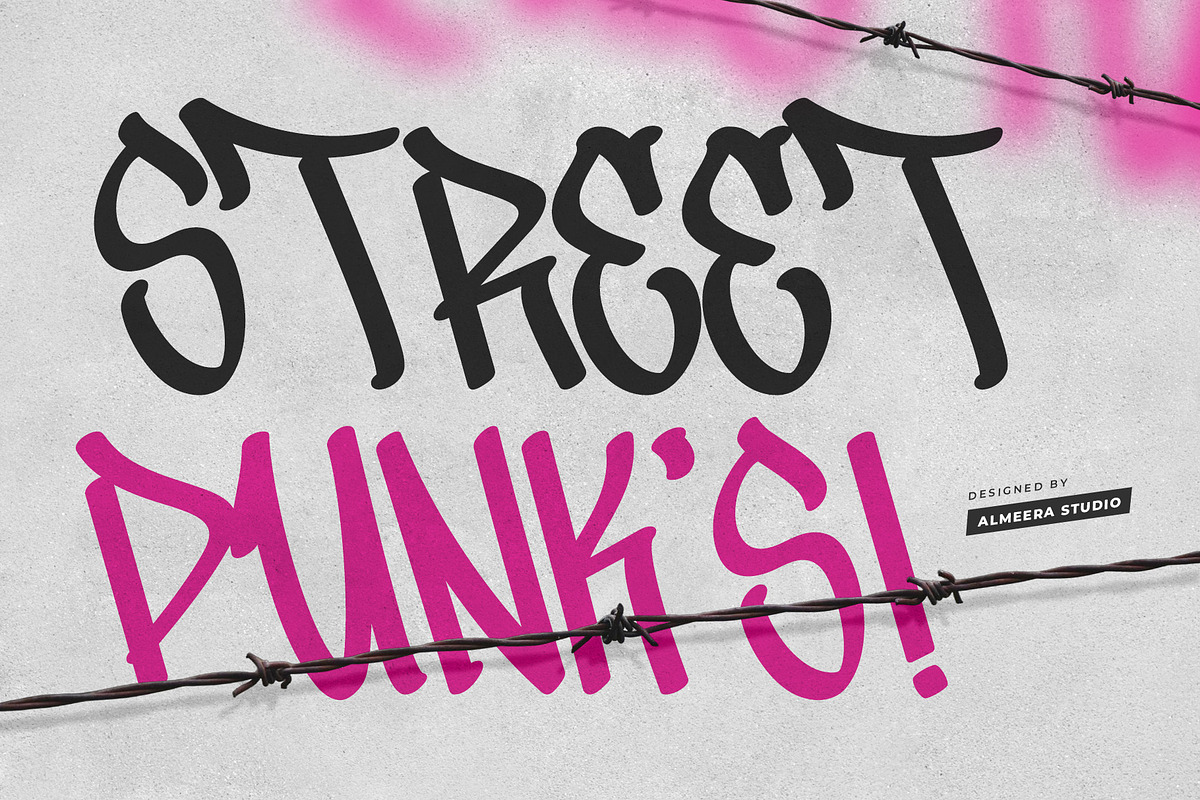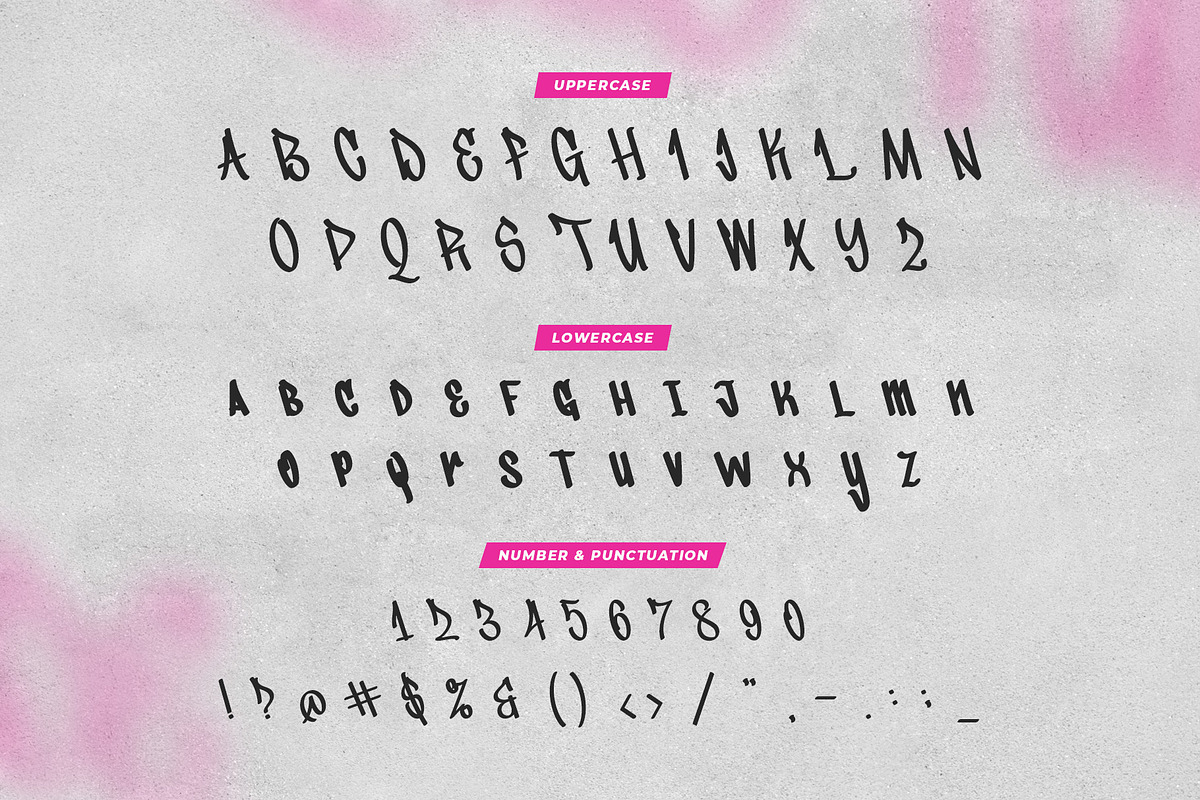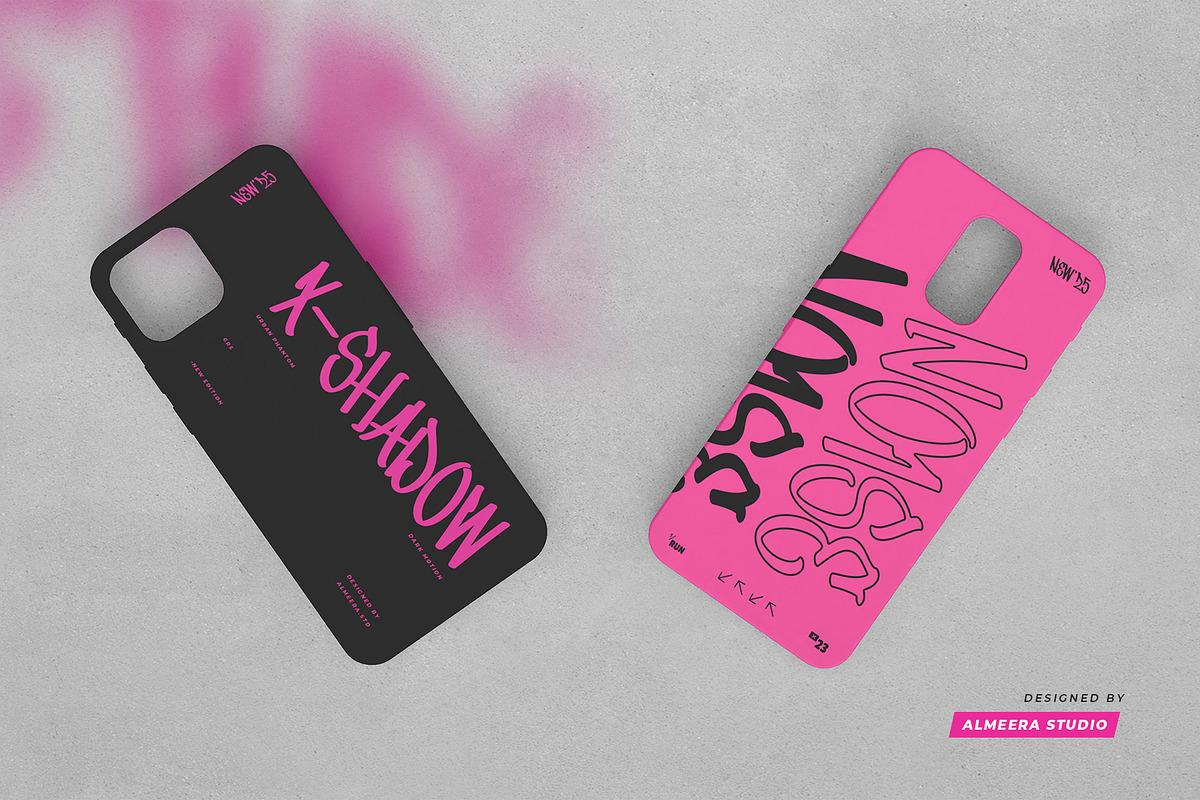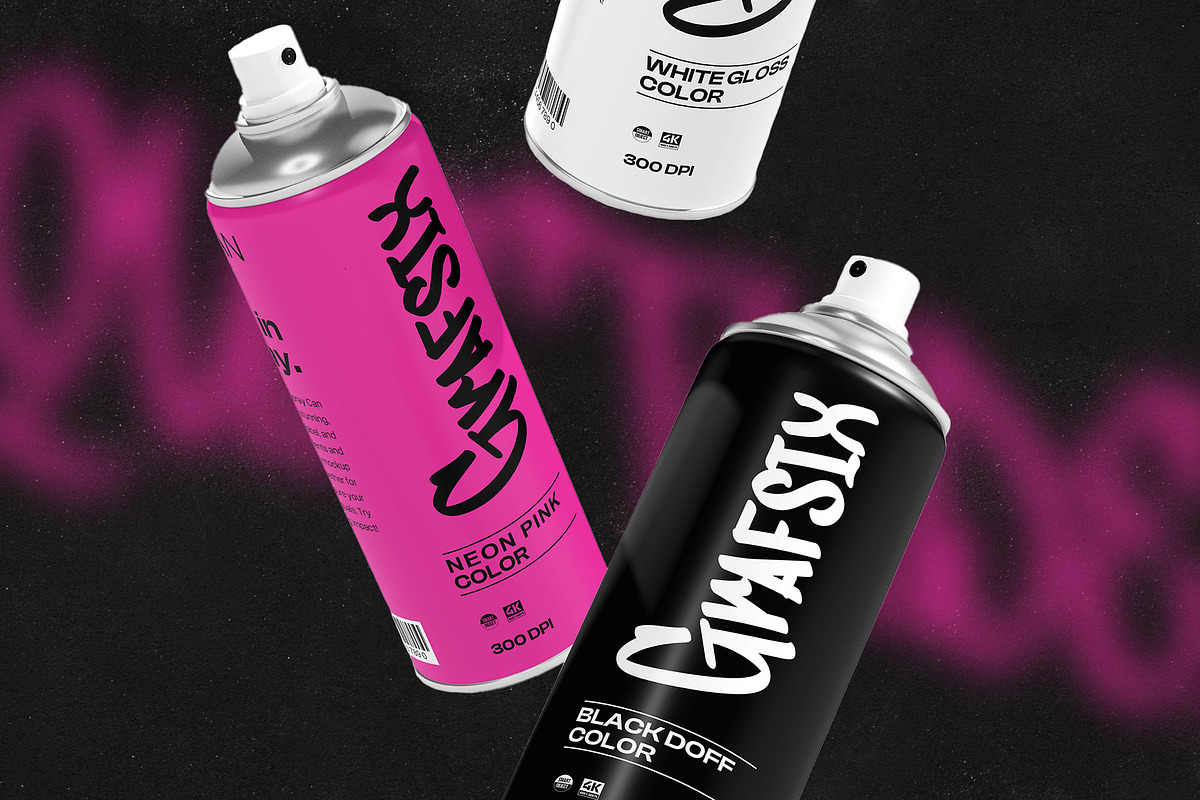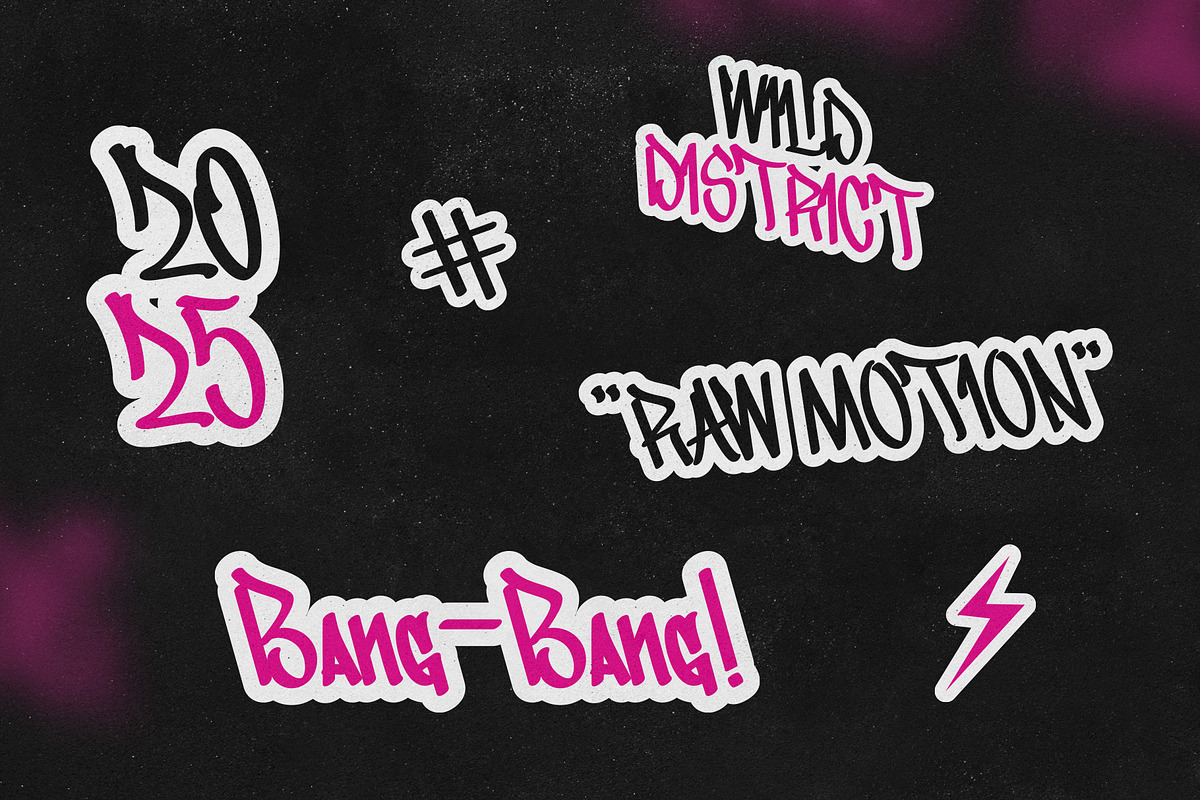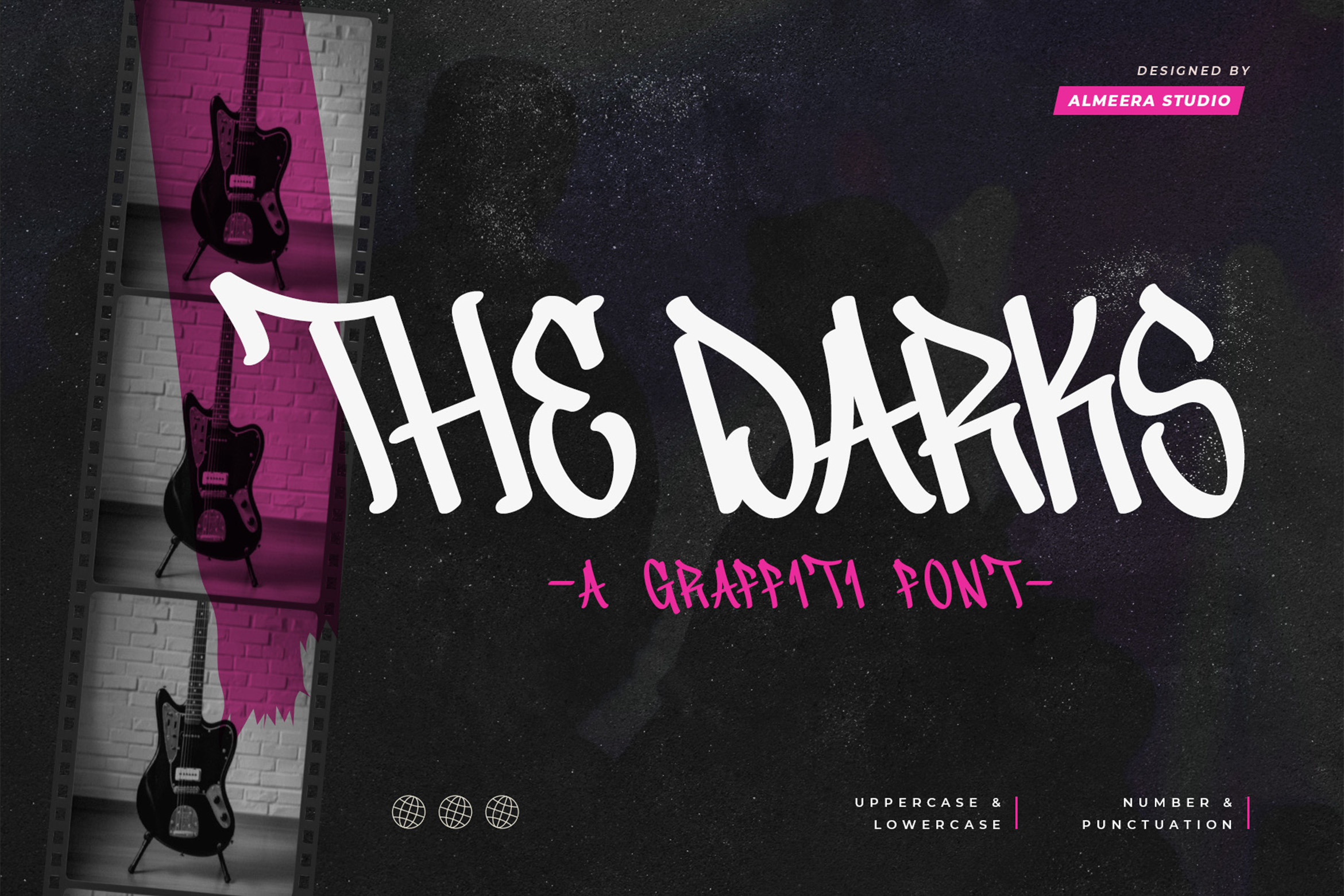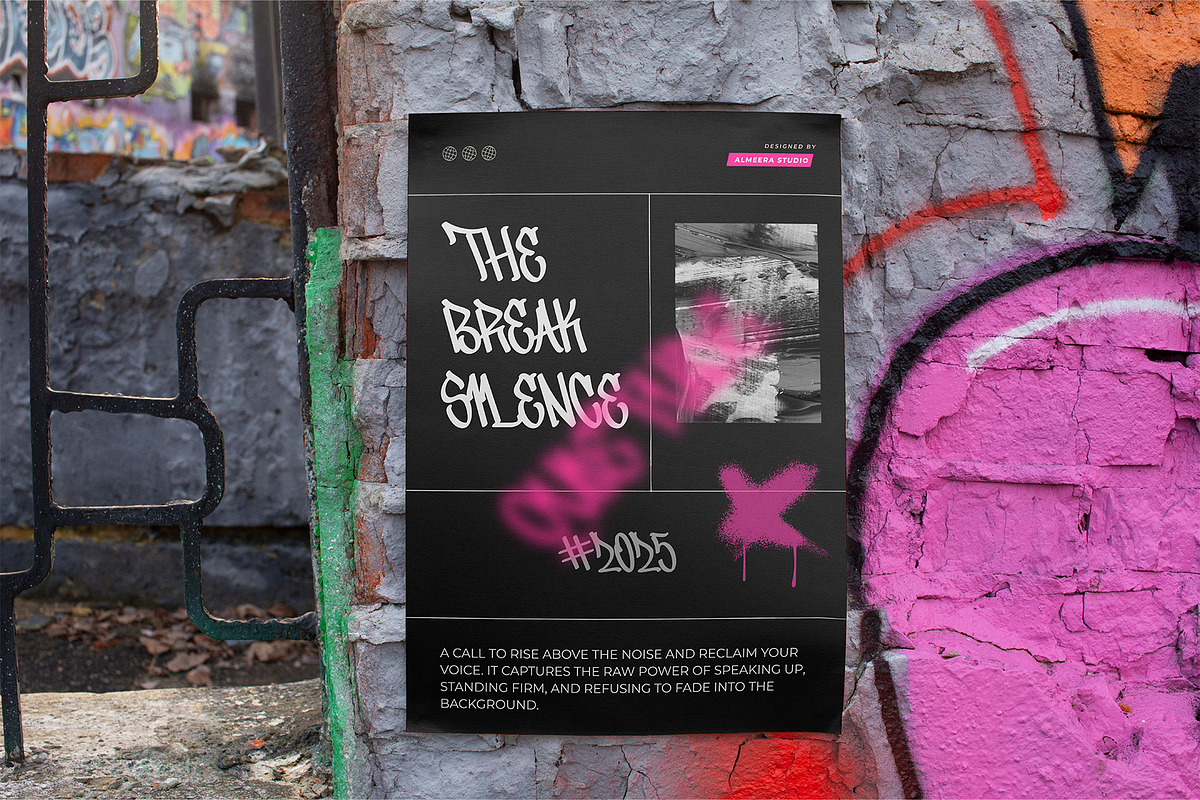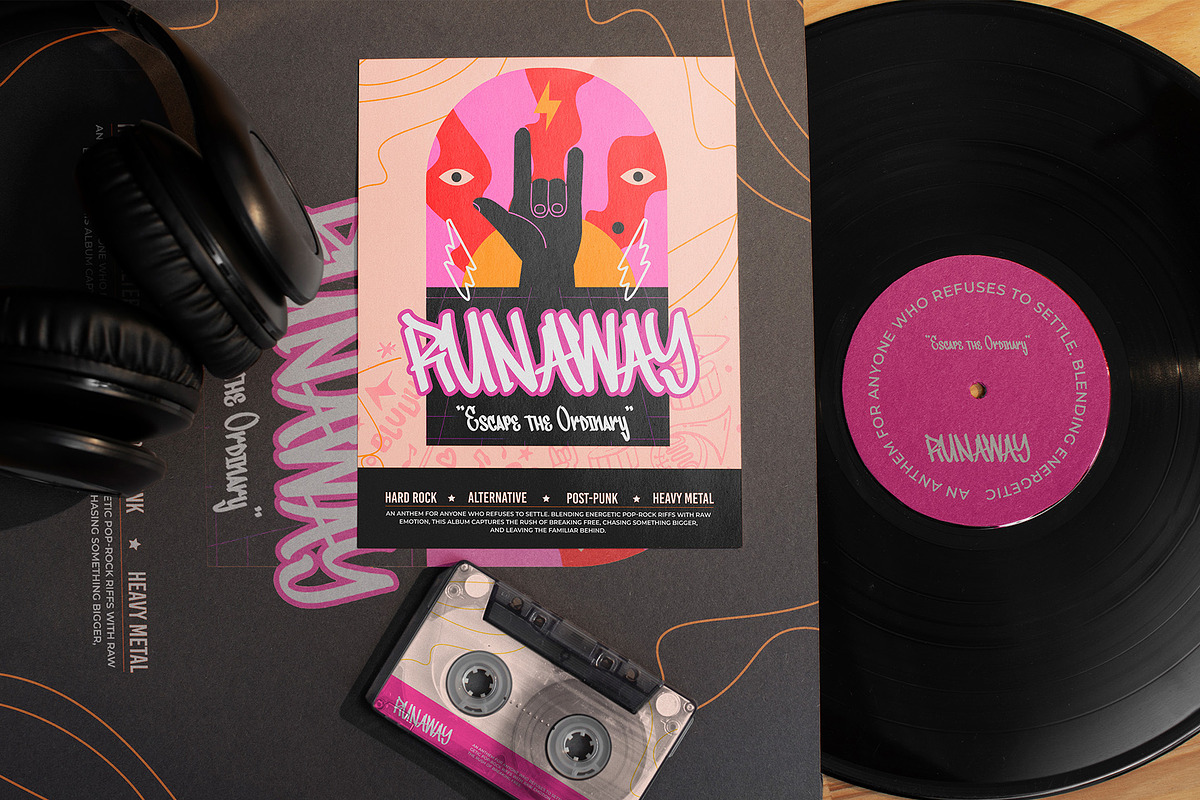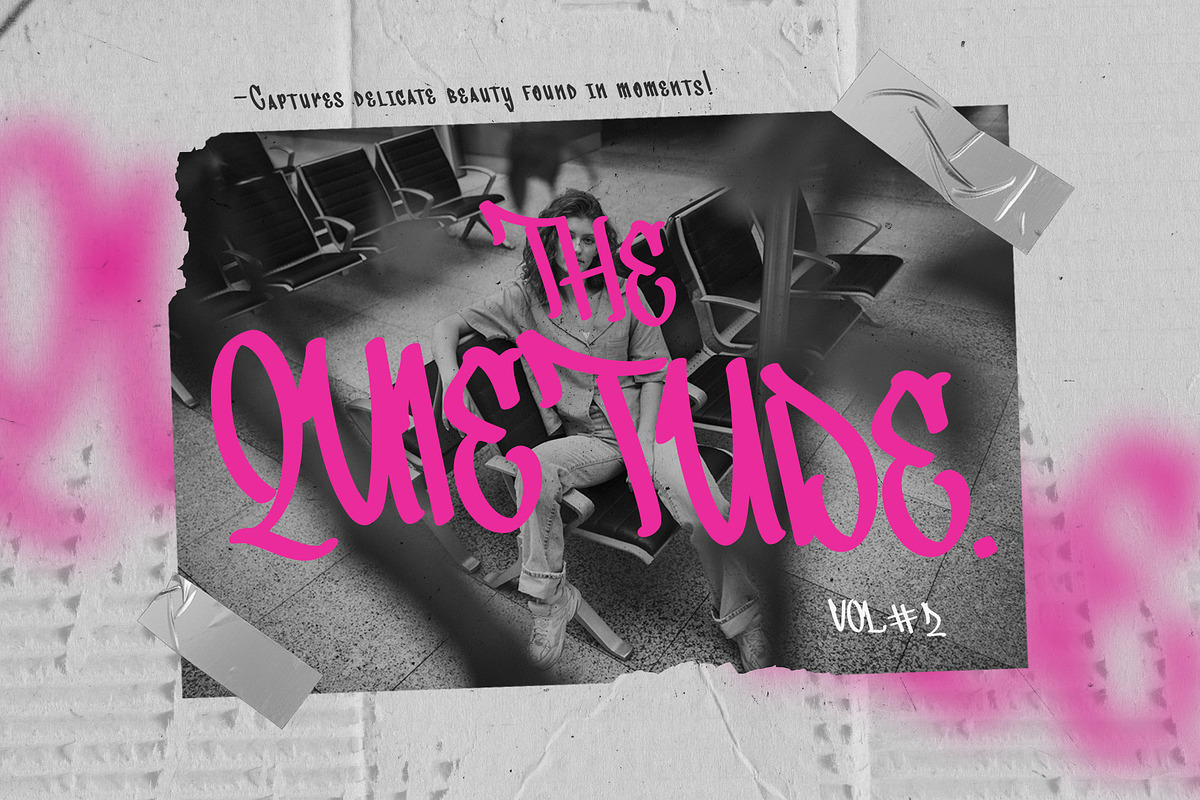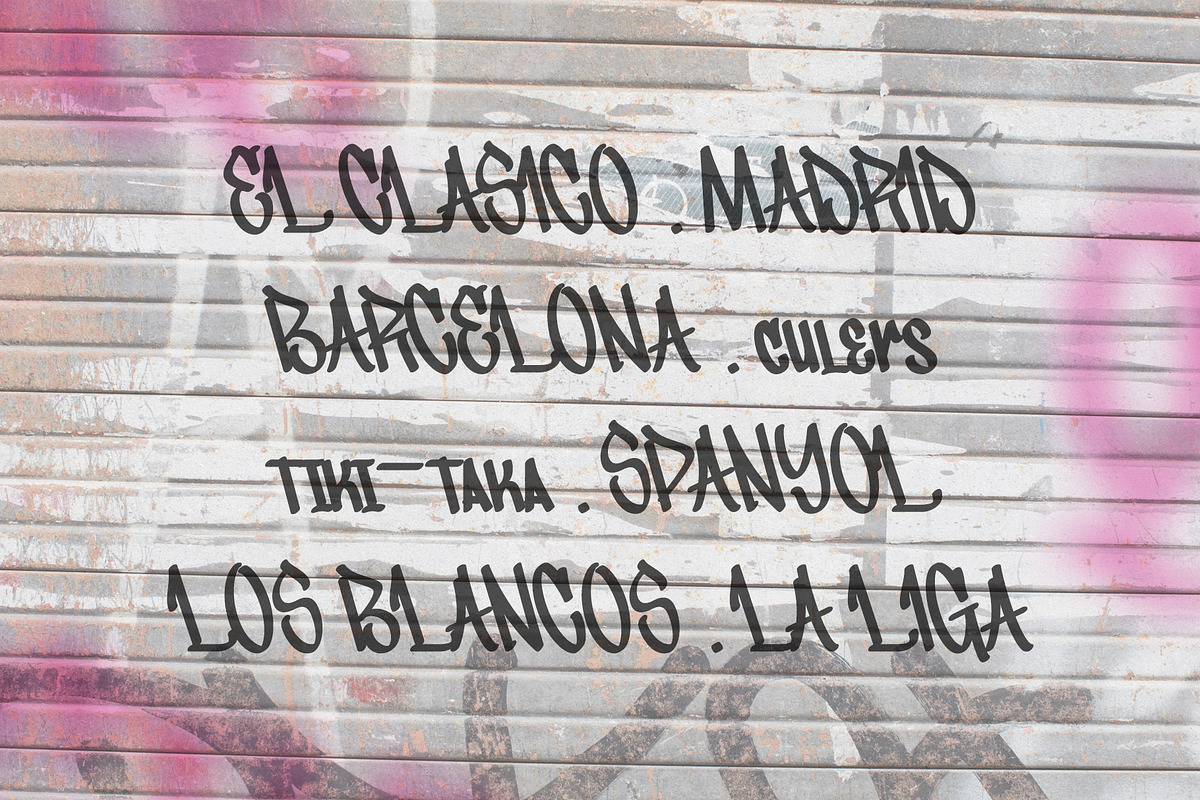
The Darks – Modern Graffiti Font
The Darks is a Modern Graffiti Display Font that carries strong street energy, raw expression, and an unmistakably urban attitude. Influenced by freestyle marker strokes and underground lettering culture, this font is designed to make a bold statement. Perfect for music posters, street-inspired branding, festival visuals, album covers, urban merchandise, or social media graphics that need a rebellious and striking personality. The Darks captures the soul of the streets through aggressive strokes and authentic graffiti aesthetics.